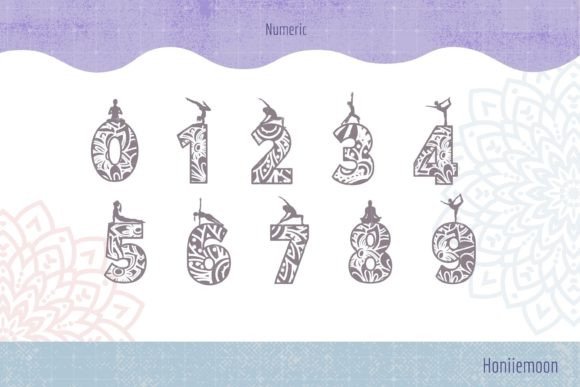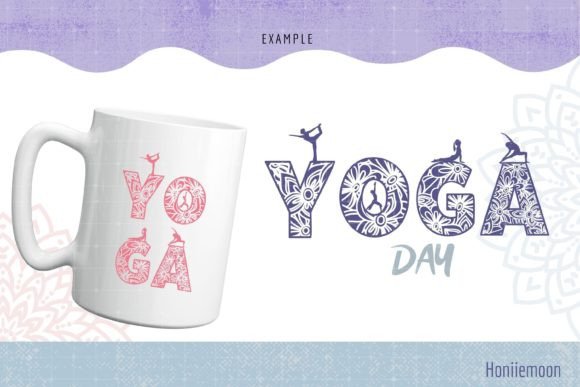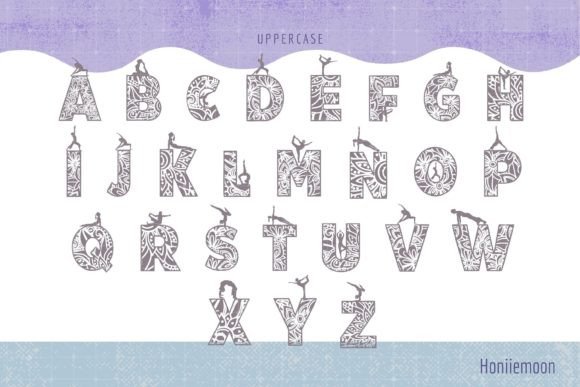
Introduction to Meditation Font
As you sit at your desk, surrounded by scattered papers, half-finished cups of coffee, and a blank screen staring back at you, you feel the weight of creative pressure. Your project deadline is looming, and you’re struggling to find the perfect design element to bring it all together. But then, like a ray of sunshine breaking through the clouds, you stumble upon the perfect solution – the Meditation Font.
| 👤 Author | Honiiemoon |
This delightful display font is more than just a pretty face; it’s a game-changer for designers looking to add a touch of whimsy and personality to their creative projects. With its high-quality design and transparent background, the Meditation Font is the perfect design resource to elevate your work and make it stand out from the crowd.
Key Features of Meditation Font
- High-quality design: Meditation Font is a beautifully crafted font perfect for any creative project, offering a unique and elegant aesthetic.
- Large character set: The font includes a large character set, including uppercase and lowercase letters, numbers, and special characters.
- Perfect for digital and print projects: This font is suitable for use in a variety of creative projects, including digital designs, print materials, and more.
Honest Review: Meditation Font
I recently stumbled upon the Meditation Font and I must say, it’s a great addition to any design project. As a designer, I appreciate high-quality fonts that can elevate the aesthetic of my work.
One thing that works well about the Meditation Font is its unique, elegant design. The font features clean lines, soft curves, and a transparent background that makes it perfect for creating visually appealing graphics and digital art.
Some of the key features of the Meditation Font include:
- Unique, elegant style that adds a touch of sophistication to any design
- Transparent background for easy layering and composition
However, one limitation of the Meditation Font is its limited character set. While it’s perfect for simple text-based designs, it may not be suitable for longer blocks of text or complex typography.
Overall, I’m impressed with the Meditation Font. It’s a great design resource that’s perfect for adding a touch of elegance to any creative project. With its high-quality design and transparent background, it’s definitely worth considering for your next design project.
Meditation Font
The Meditation Font is a free download design resource perfect for creating a high-quality, calming atmosphere in your creative project. With its transparent background and elegant typography, this font is ideal for any design project that requires a touch of serenity.
Getting the Most Out of Meditation Font
Here are some tips to help you get the most out of Meditation Font:
- Use it to create a consistent brand identity.
- Pair it with a calming color scheme for a serene atmosphere.
- Experiment with different font sizes and styles to add visual interest.
The Meditation Font is perfect for:
- Creating calming and relaxing designs.
- Designing wellness and self-care products.
- Developing a consistent brand identity.